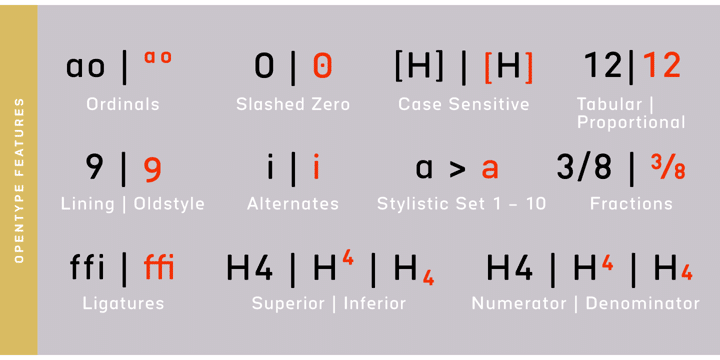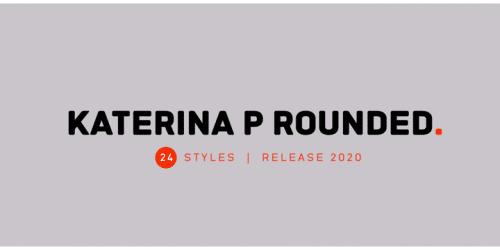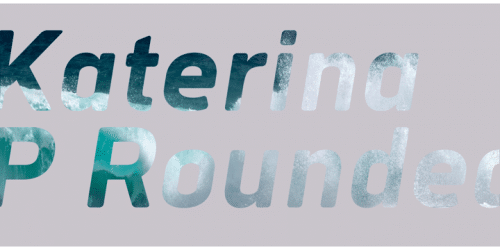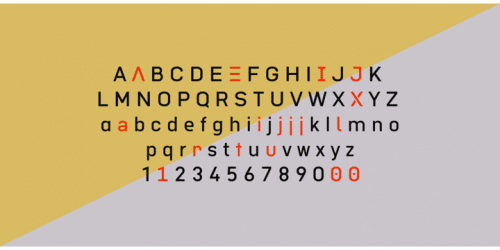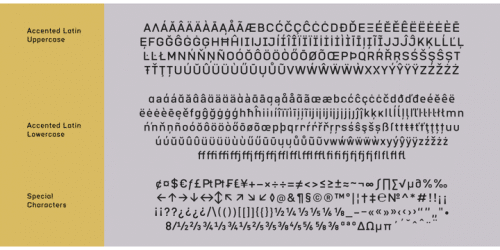
Katerina P Rounded Sans Serif Typeface
Katerina P Rounded was designed by Nikolay Savchuk. Katerina P Rounded is a modern versatile sans-serif typeface. What differentiates Katerina P Rounded from the other fonts is an exceptionally distinctive design.
It is brilliantly suited for graphic design and display use and perfect for logotypes, t-shirts, packaging, brand identity, books, magazines, newspapers, posters, billboards, and advertising.
• Designer: Nikolay Savchuk